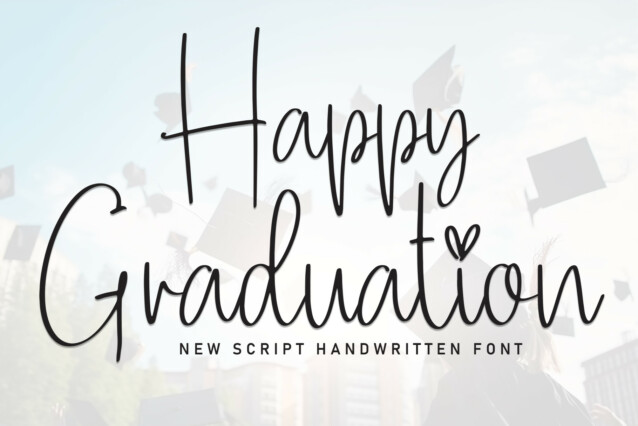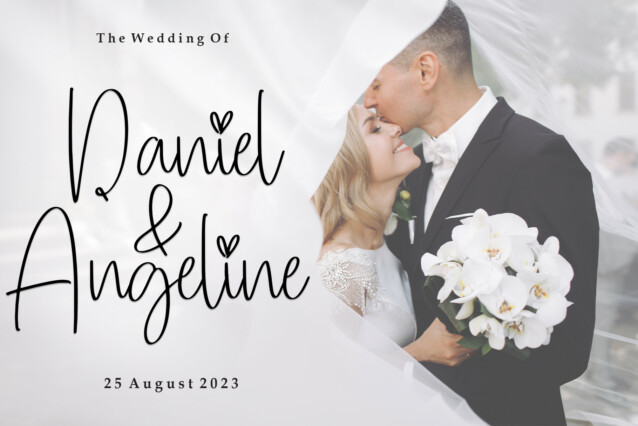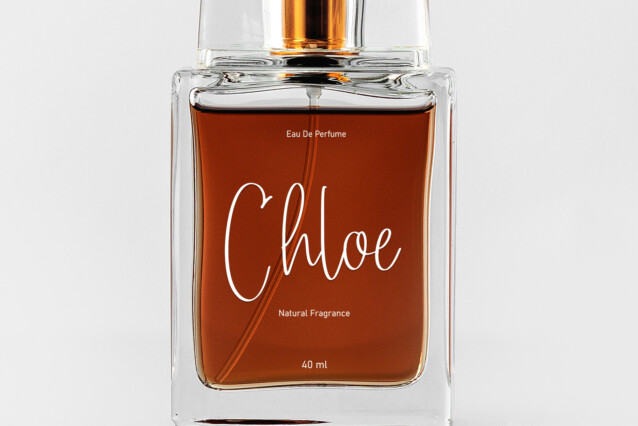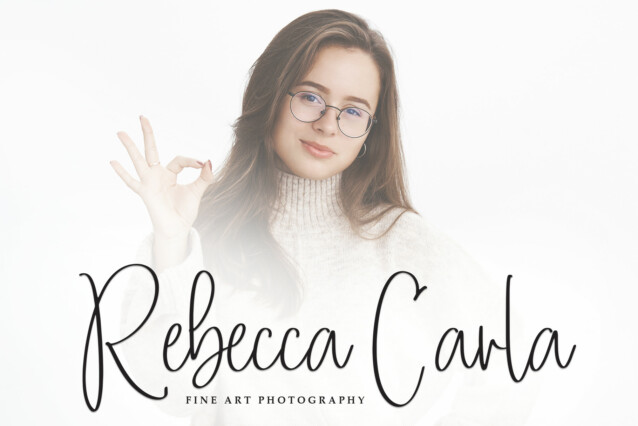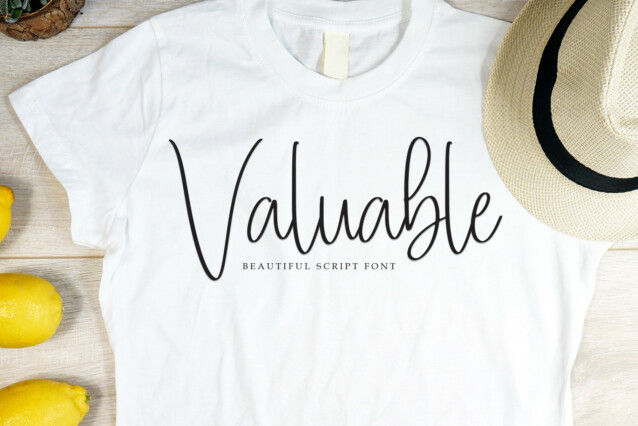
Happy Graduation Font
Happy Graduation Font is an elegant and dainty handwritten font that features sweet and delicate swashes. This original look will appeal to a wide range of crafty ideas, from letterheads and titles, to stationery.